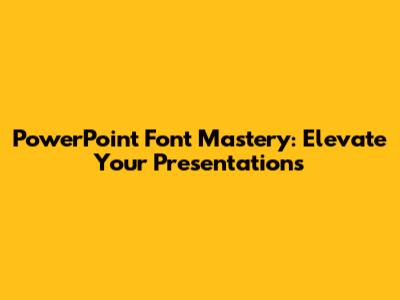
PowerPoint Font Mastery: Elevate Your Presentations
Hey everyone! Ever wondered how to make your PowerPoint presentations truly pop? Well, a big part of that is mastering the art of fonts! Choosing the right font can be the difference between a presentation that wows your audience and one that, well, puts them to sleep. Seriously, the right fonts can instantly boost your presentation's visual appeal and help you communicate your message more effectively. So, let's dive into the nitty-gritty of fonts in PowerPoint, and I'll walk you through everything you need to know to become a font aficionado. From understanding the basics to picking the perfect font pairings and ensuring your fonts look great on any screen, we've got you covered. Get ready to transform those presentations from drab to fab!
Understanding the Basics of Fonts in PowerPoint
Alright, first things first, let's get acquainted with the fundamental concepts of fonts. Think of it like learning the alphabet before you write a novel. Understanding these basics will make the entire process so much easier, trust me! There are two primary types of fonts you'll encounter: serif and sans-serif. Serif fonts, like Times New Roman or Georgia, have those little decorative strokes, called serifs, at the end of each letter. They often give a classic, traditional, or even formal feel. They're generally considered great for body text, as the serifs help guide the eye across the page, making them easier to read in larger blocks of text. Then we have sans-serif fonts, such as Arial or Calibri. "Sans" means "without" in French, so these fonts lack the serifs. They have a clean, modern look, and are ideal for headings, titles, and anything you want to stand out. Sans-serif fonts are generally best used in headlines and smaller blocks of text, as they can sometimes be harder to read in large bodies of text. This is a very important fact to always keep in mind.
Beyond serifs and sans-serifs, you'll also encounter different font families. A font family is a group of fonts that share a similar design but come in various weights (like bold, light, or italic) and styles. For instance, the Arial family includes Arial, Arial Bold, Arial Italic, and so on. Using font families allows you to create visual consistency in your presentation. This is extremely important, the more consistency the better! And one of the most important things to do is always keeping a consistent style throughout your presentations. Finally, keep in mind the difference between fonts and typefaces. A typeface is the design of the letters, while a font is a specific version of a typeface. So, Arial is a typeface, and Arial Bold is a font. Knowing these terminologies will help you understand the next steps and get the most out of it.
Now, let's talk about some font characteristics, like weight (how bold or light the font is), size (measured in points), and spacing (how much space is between the letters and lines). These are all essential elements when it comes to readability. You want your text to be easy on the eyes, so make sure to play around with these settings until you find a combination that works perfectly. This part needs to be taken seriously, never underestimate the power of a perfect configuration! And there you have it, the fundamental building blocks of fonts in PowerPoint. With this knowledge in your toolkit, you're now ready to start creating presentations that are as visually appealing as they are informative. Trust me, it's gonna be a fun journey!
Choosing the Right Fonts for Your PowerPoint Presentation
Okay, so now that you've got the basics down, it's time to talk about the fun part: picking the perfect fonts for your PowerPoint presentation. This is where you get to unleash your creativity and personality! Think of your presentation as a canvas, and the fonts as the brushes that bring it to life. First things first, consider your audience. Who are you presenting to? What's their level of formality? A presentation for a corporate board meeting is going to call for a different font than, say, a presentation for a kids' summer camp. Understanding your audience helps you determine the appropriate tone and style. For instance, if you're targeting a more formal audience, a classic serif font like Times New Roman or Garamond might be a good fit, while a modern audience would appreciate a sans-serif like Open Sans or Montserrat.
Next, think about your message. What are you trying to communicate? Is it serious, playful, or innovative? The font you choose should reflect the essence of your content. If you're talking about a serious topic, a clean, readable font will emphasize professionalism. If you want to make it look playful, try a more creative font. It's all about matching the font to your message! You can achieve this by playing with the different possibilities of fonts and settings.
Font pairings are also key to creating a cohesive look. Don't just pick any two fonts and call it a day! Think about how the fonts complement each other. A good rule of thumb is to pair a serif font for headings with a sans-serif font for body text, or vice versa. The contrast will make your presentation more visually interesting and easier to read. Some classic font pairings include: Open Sans (headings) with Lato (body text), or Playfair Display (headings) with Roboto (body text). Experimenting with different pairings is part of the fun! When choosing fonts, make sure you keep the number of fonts to a minimum. Stick to two or three fonts maximum throughout the entire presentation to avoid visual clutter. This will guarantee a clear style to the eyes of your audience.
Finally, make sure that your chosen fonts are readable at a distance. If your presentation will be viewed on a large screen, choose fonts that are bold enough and large enough to be easily seen from the back of the room. Nothing's worse than an audience squinting to read your slides! Use the preview mode in PowerPoint to test how your presentation looks on different screen sizes and make adjustments as needed. Always try to stay in the middle ground, not too big and not too small, but just the right size.
Font Size, Style, and Readability Tips
Alright, you've chosen your fonts, now it's time to refine the details! Font size is one of the most crucial elements for readability in your PowerPoint presentation. As a general rule, aim for a minimum font size of 24 points for body text and 30-40 points for headings, but this can vary depending on the font itself and the screen size. Always prioritize clarity, and don't be afraid to increase the size if needed. This is where it gets interesting, as you start playing with the sizes of your fonts.
Font styles (bold, italic, underline) can enhance your text. Use bold to emphasize key points, italics for quotes or emphasis, and underline sparingly (it can sometimes look like a hyperlink). The same goes for any style, use them wisely and use them with style! However, be careful not to overuse them, as excessive styling can make your slides look cluttered and make it difficult for your audience to focus on your message. Also, using too many styles might make you look bad.
Spacing is equally important. Pay attention to the spacing between letters (tracking) and lines (leading). Adjust the spacing to improve readability and prevent your text from looking cramped or too spread out. Most fonts allow you to adjust the spacing, so you can make some changes in order to find the one that fits you best. PowerPoint has built-in tools for adjusting both, so play around until you find what feels right. You'll thank me later.
Now, let's talk about alignment. Left-aligned text is generally the easiest to read, but centering can work well for titles and short phrases. Avoid justifying large blocks of text, as it can create awkward gaps between words. Use bullet points and concise language to keep your slides clean and easy to scan. Remember, your audience has only a limited time to get your message, so it is your job to make it easier for them!
Finally, let's not forget color. Choose colors that provide enough contrast between the text and the background. Dark text on a light background is usually best for readability, but there can always be exceptions. Avoid using too many colors, and stick to a consistent color scheme throughout your presentation. You don't want to distract your audience with a rainbow of colors! By paying attention to these details, you'll make sure your slides not only look great but are also incredibly easy to read and understand. With all this in mind, you will reach your audience properly!
Troubleshooting Common Font Issues in PowerPoint
Even the most seasoned presenters run into a few font hiccups now and then. So, let's talk about some common font issues and how to troubleshoot them, because let's face it, things can go wrong sometimes when dealing with PowerPoint presentations. One of the most common issues is font substitution. This happens when the font you used on your computer isn't installed on the computer where you're presenting, and PowerPoint automatically replaces it with a default font, which will make your presentation look horrible, and you wouldn't want that! To avoid this, consider embedding your fonts in the PowerPoint file. Go to File > Options > Save and check the "Embed fonts in the file" box. This ensures that your chosen fonts will always display correctly, no matter where you present. The downside is that it will increase the file size, but it's usually worth it for the sake of consistency. And sometimes consistency is better than a small size file.
Another issue is font distortion, which can occur if the font is displayed on a different operating system (like Windows vs. macOS) or at a different screen resolution. To minimize distortion, use standard fonts that are widely available and well-designed for screen display. Make sure to preview your presentation on different devices before your presentation to check for any distortions.
If your text appears blurry, it might be due to the screen resolution or the font size. Choose a font size that's appropriate for the screen size and viewing distance, and make sure your presentation is displayed at its optimal resolution. If all fails, you can always try to render the text as an image. However, try the methods before.
Sometimes, you might run into compatibility issues with fonts from other programs. If you're importing text from Word or other software, double-check that the font is correctly formatted in PowerPoint. If you're using a complex font, consider converting your text to a picture to ensure it looks exactly as intended. Also, make sure that you update the versions of your tools, to avoid older versions.
Finally, always test your presentation on the actual equipment you'll be using. This allows you to identify any font issues before you present to your audience. Practicing your presentation is also useful for testing and making adjustments to the presentation.
Best Practices for Using Fonts in PowerPoint
Alright, let's wrap things up with some best practices to keep in mind when using fonts in your PowerPoint presentations. These tips will help you create professional-looking and effective slides. First, keep it simple. Resist the urge to use too many different fonts or font styles. The more you add, the more distracting it gets. Choose a font family and stick with it throughout your presentation for a clean, consistent look. Trust me, less is often more!
Prioritize readability. Always put readability first. Make sure your font size is large enough, and there's enough contrast between the text and the background. You want your audience to focus on your message, not squinting to read your slides! If they are squinting, it might be time to review your strategy, or you won't reach your audience.
Use white space effectively. Don't cram your slides with text. Use white space (the empty areas around your text and images) to create visual balance and make your slides more appealing. White space will also help you create a better and clean style.
Be consistent. Apply consistent formatting throughout your presentation. Use the same font sizes, styles, and alignments for similar elements. This will make your presentation look polished and professional. Your audience will thank you.
Test, test, test! Before you present, review your presentation on the device you'll be using and make sure everything looks good. This will help you catch any font issues before they become a problem. Always be prepared! Taking these steps, you will make the best PowerPoint presentation.
Get inspired. Take a look at other presentations, websites, and design resources to get ideas for font pairings and layouts. Don't be afraid to experiment and find what works best for you. Finding new possibilities will surely help you create the best presentations ever!